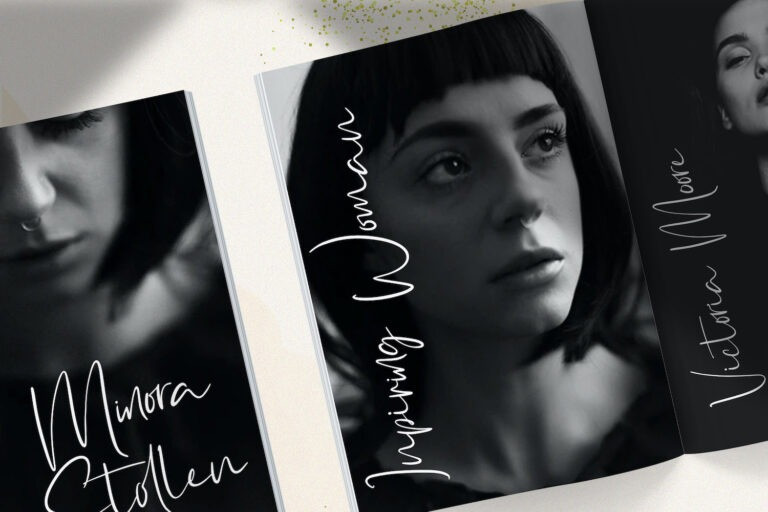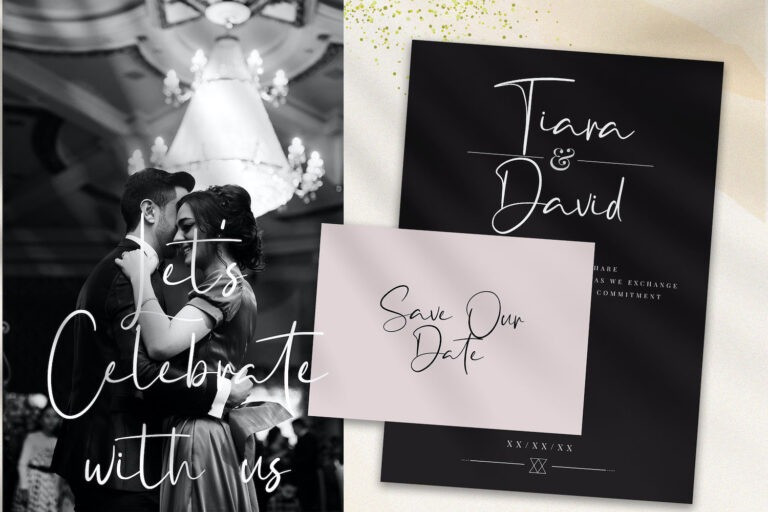
Havel White Script Font
Havel White is a chic, refined script font that emanates sophistication and elegance. Its stylish alternates and ligatures make this font the perfect match for any project.